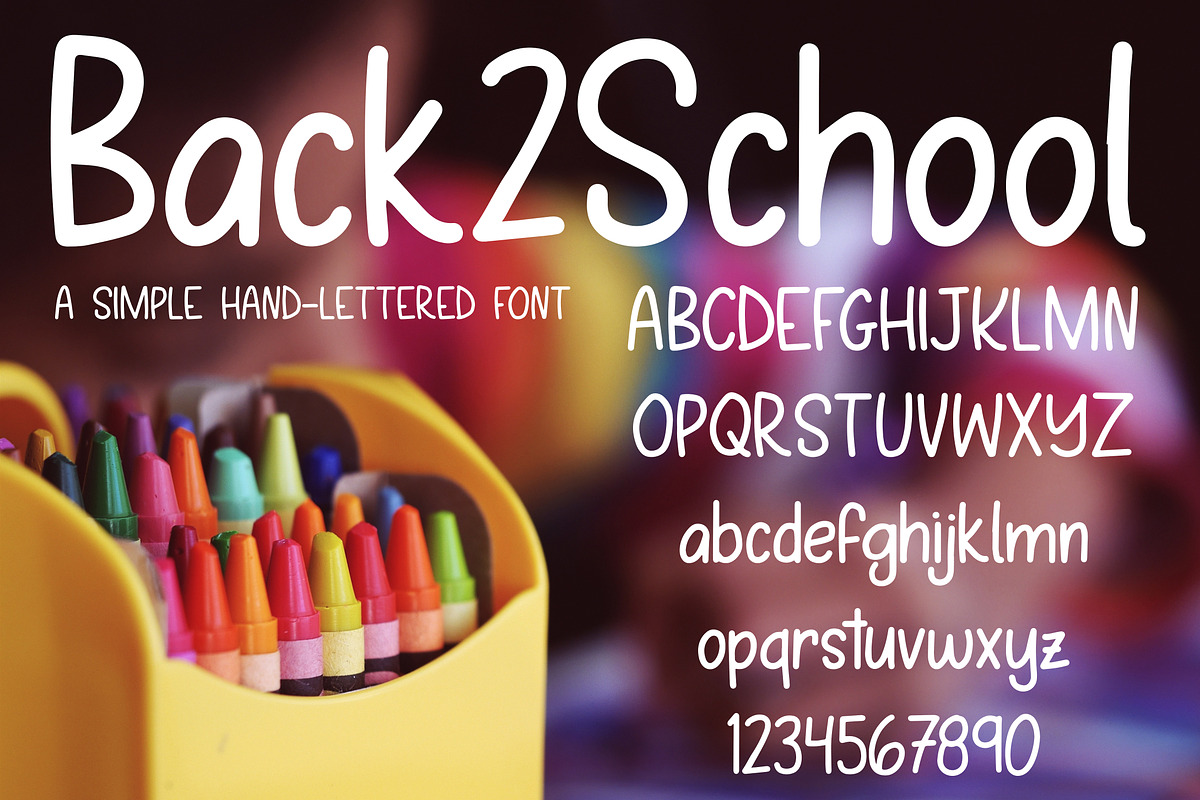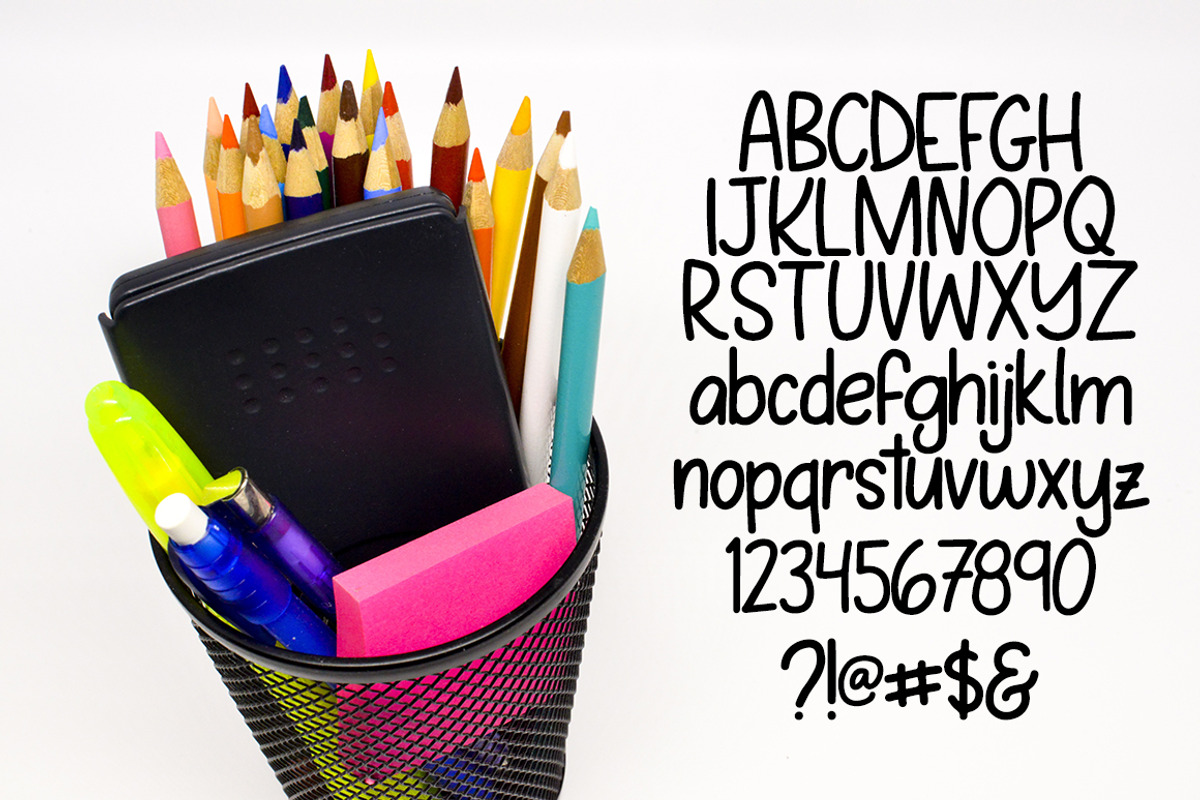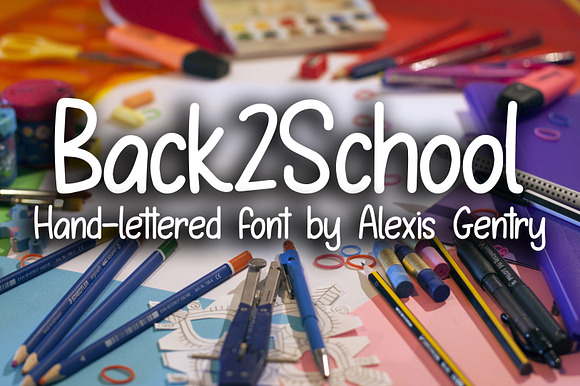
Back2School hand-lettered font
Back2School is a hand-lettered font based on real handwriting. This font is a perfect choice for teachers and students when making projects for the school year.
- Punctuation
- Some diacritics
Back2School hand-lettered font by Alexis Gentry fits naturally into Branding, posters, packaging, typography.